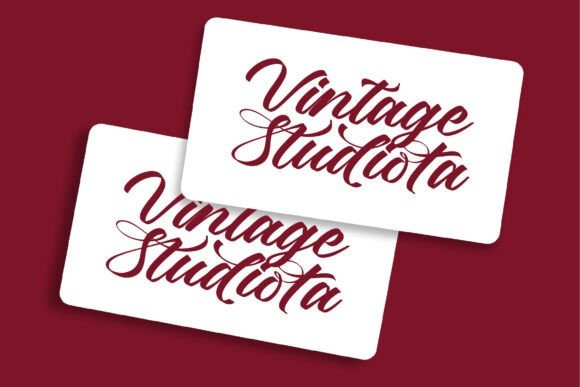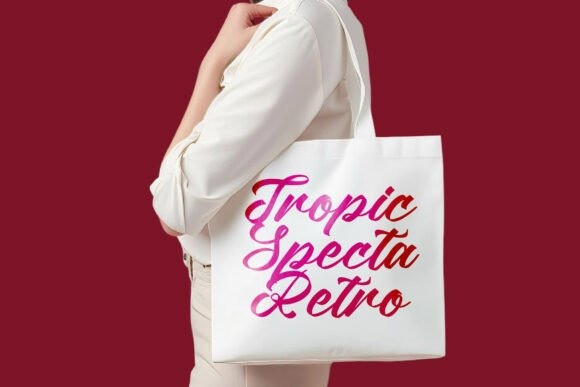
Betyou Stunned Font
Betyou Stunned Font – Bold Brush Font , from Letterena, is a Luxury Script font, suitable for any projects such as: logos, branding projects, homeware designs, product packaging, mugs, quotes, posters, shopping bags, t-shirts, book covers, name card, invitation cards, greeting cards, label, photography, watermark, special events, and all your other luxury and beautiful projects that need a Luxury Script taste.